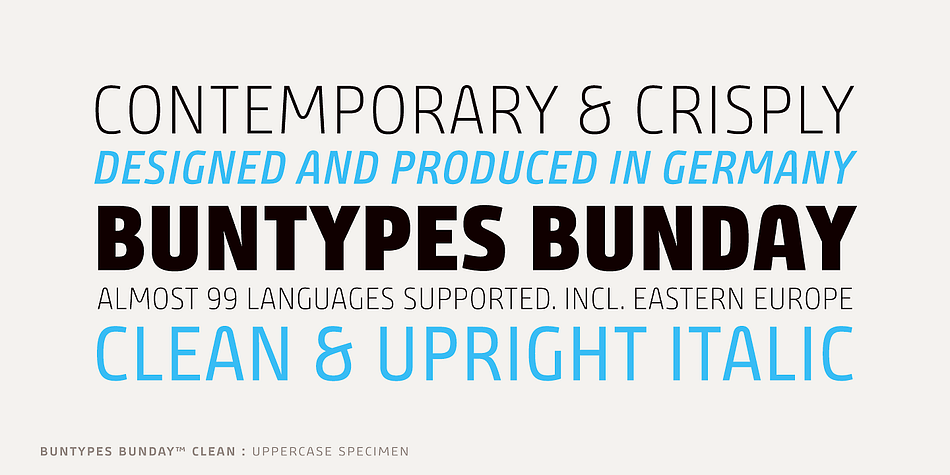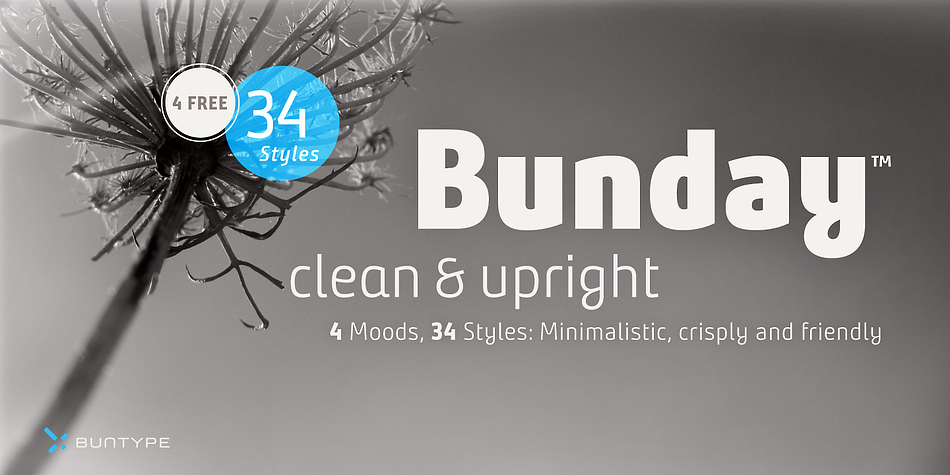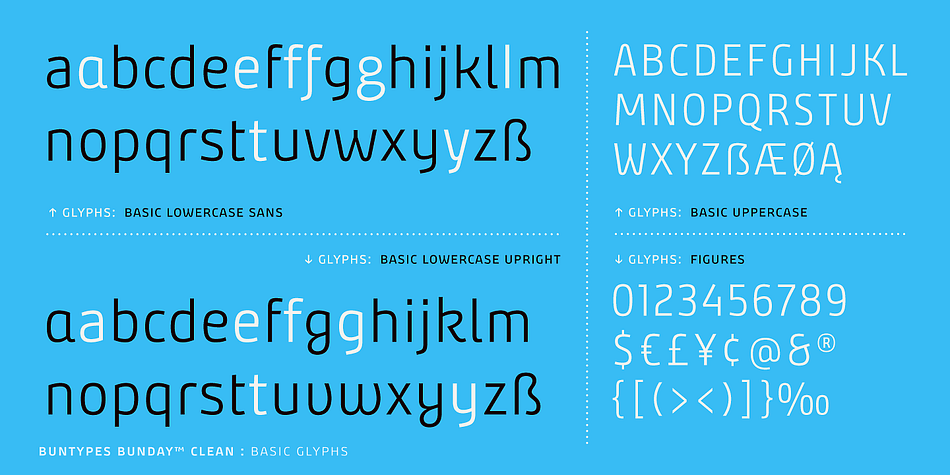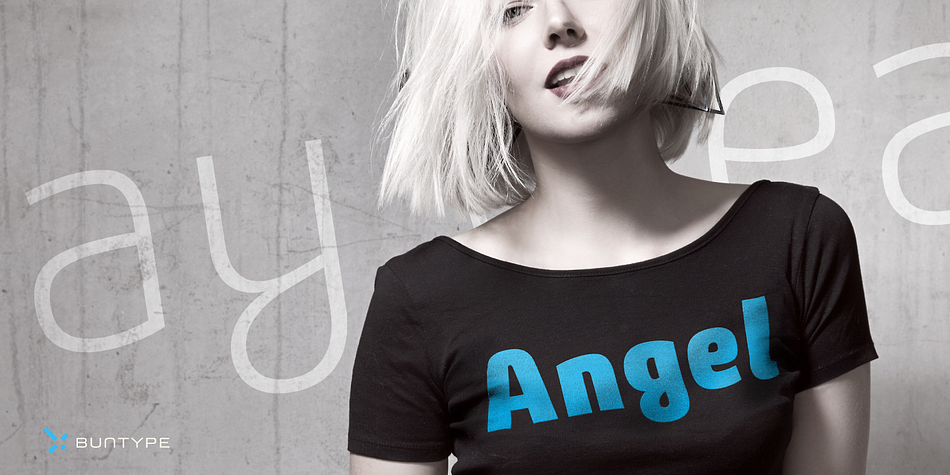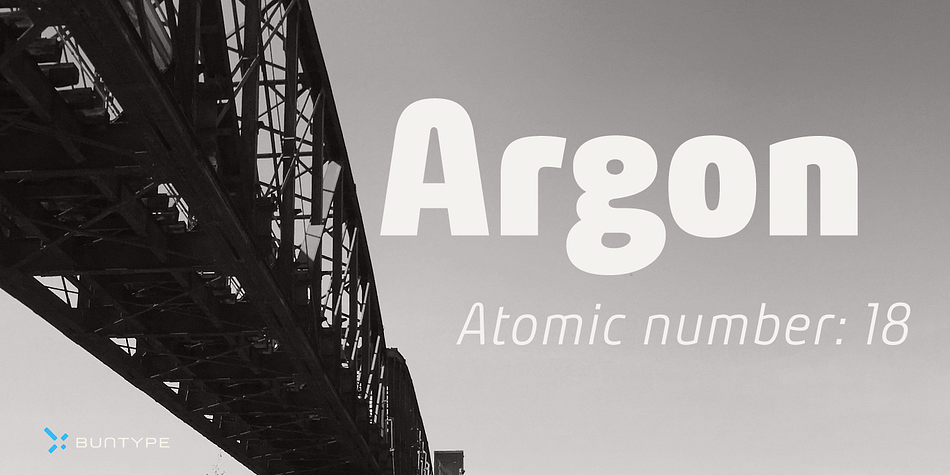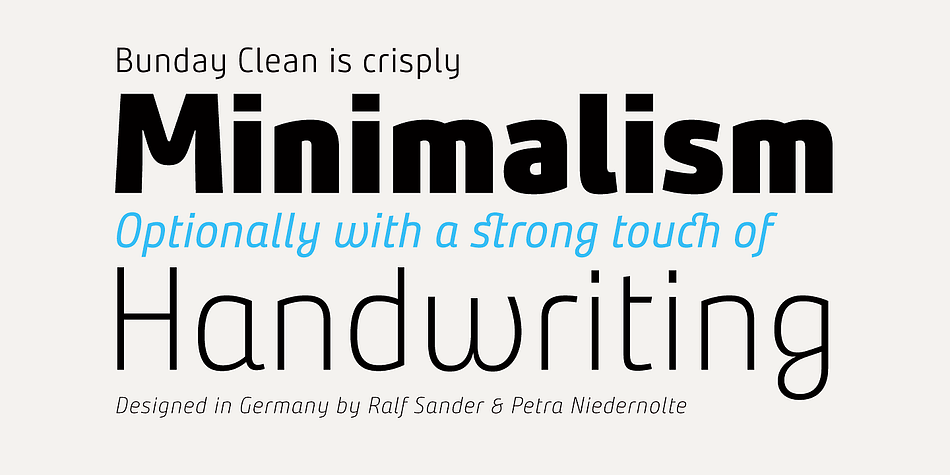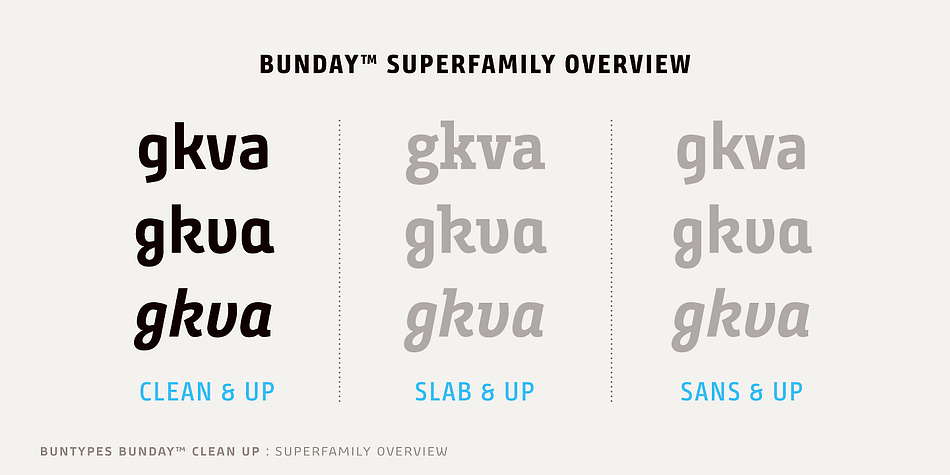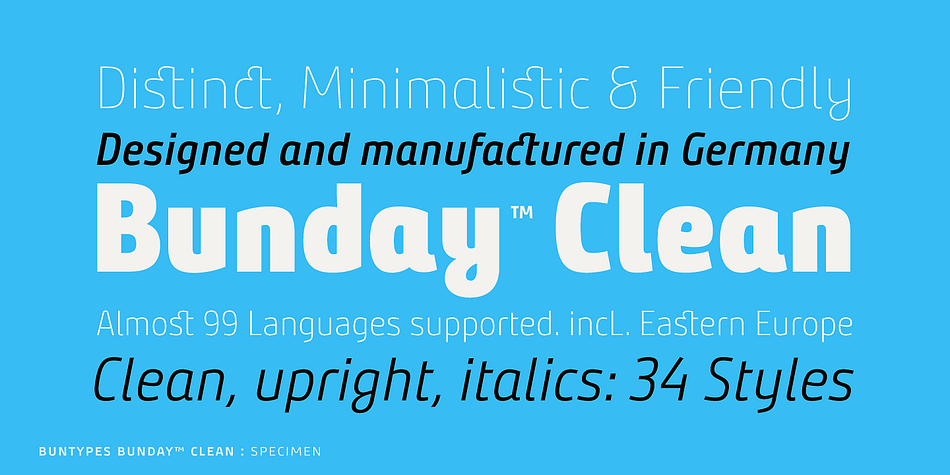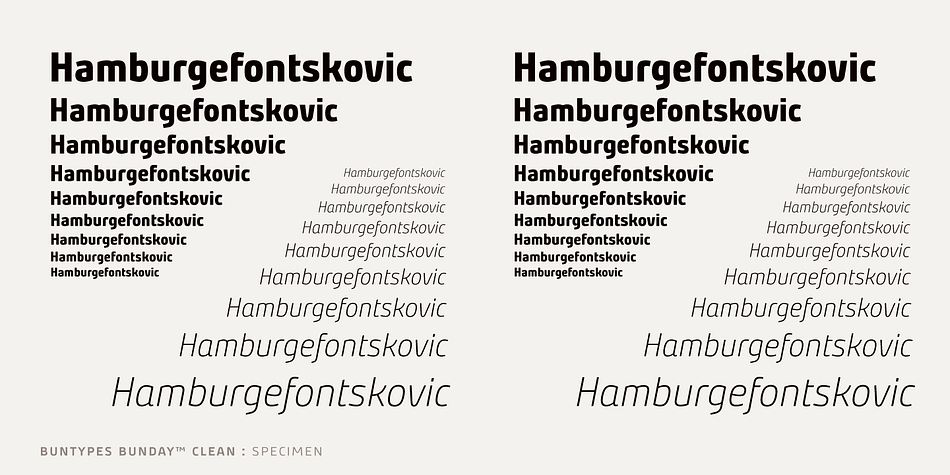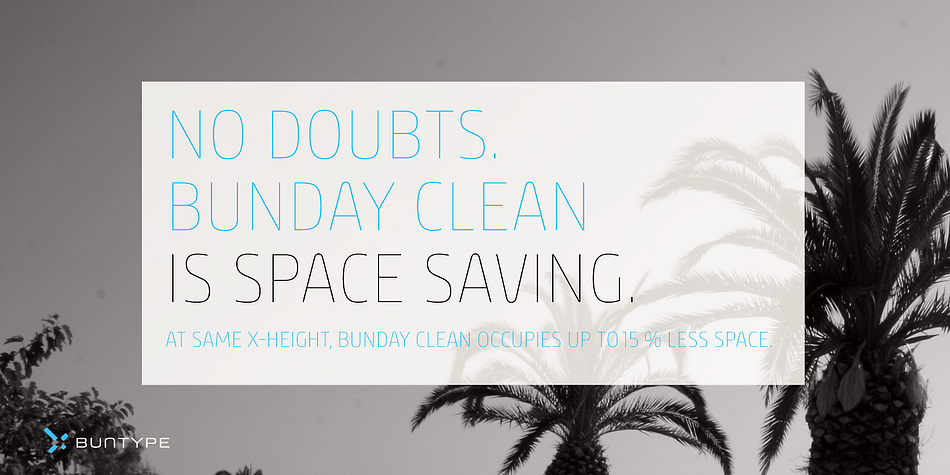
Bunday™ Clean is a sans serif font family. This typeface has thirty-four styles and was published by Buntype.
Bunday™ Clean is a minimalistic and friendly font family with different moods. It drops all „unnecessaries“ like spurs and ears and it appears crisp and contemporary with a little squarish touch. Like the other members of the Bunday superfamily, Bunday™ Sans and Bunday™ Slab. Bunday™ Clean provides a second set of styles with characters, that refer to handwritten forms: the „uprights“. These curvy styles give words a distinct look (presence) and a great appeal especially in display applications and logotype design.
Bunday™ Clean is space-saving and creates a homogenious text colour with good legibility. The font was manually hinted and contains extensive handcrafted kerning tables to ensure perfect appearance in all media.
It ships with 9 standard, 9 upright and corresponding italic styles from a considerable thin “Hair” to a pretty fat “Heavy” weight. It supports at least 99 languages and provides OpenType® features for ligatures, alternative glyphs, localized forms and many more.
Feature Summary*:
-4 Moods: Normal, Upright, Italic and Upright Italic
-9 weights: Hair, Light, Thin, SemiLight, Regular, SemiBold, Bold, ExtraBold and Heavy
-Supports at least 99 languages incl. Eastern European
-Overall width: Narrow or Space-Saving
-Advanced f- ligature set including fb
-Discretionary s- and c- ligatures
-Alternative Characters: a, e, f, g, l, t, y, A, E, F, L, and more
-Capital German Eszett
-Extra characters with Polish Kreska
-Catalan Punt Volat
-More than 570 characters per font
Letterspacing, wordspacing and kerning has been optimized for reading sizes in print applications. We have tried to find a good balance between legibility and harmonic grey level. For smaller sizes and screen usage, you should consider to icrease it by 10-20 em. To optimize readability furthermore, you might use the replacement characters for e and l (less cute but the eye is more accustomed to these more conventional forms).